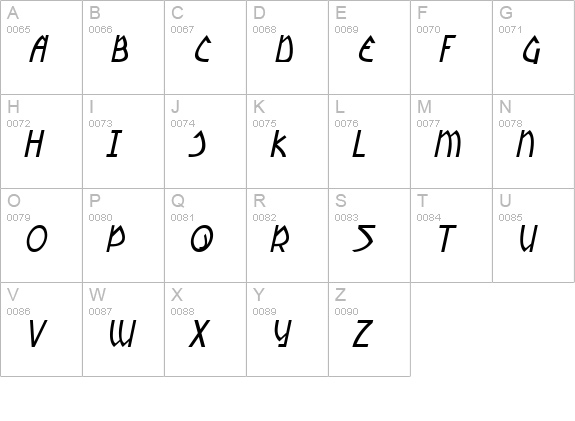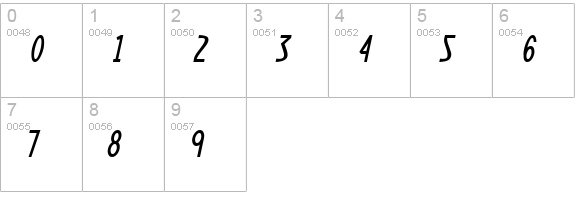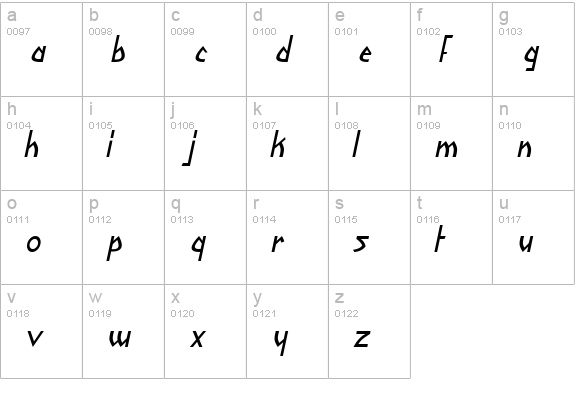
Yoshitoshi Italic is a distinctive, italic variant in the Yoshitoshi typeface family \xE2\x80\x94 well suited to design and typography projects.
Yoshitoshi Italic font is a beautifully crafted typeface that exudes elegance and sophistication. Its sleek and modern design makes it perfect for a wide range of design projects, from branding to editorial layouts. The italic style adds a touch of flair and personality to any text, making it stand out in a sea of fonts. What makes Yoshitoshi Italic font even more appealing is that it is available for free download at FontsMarket.com. This means that you can add this stylish font to your collection without having to spend a dime. Whether you're a designer looking to enhance your projects or simply someone who appreciates high-quality typography, Yoshitoshi Italic font is a must-have addition to your toolkit. Download it today and elevate your designs with this versatile and eye-catching typeface.